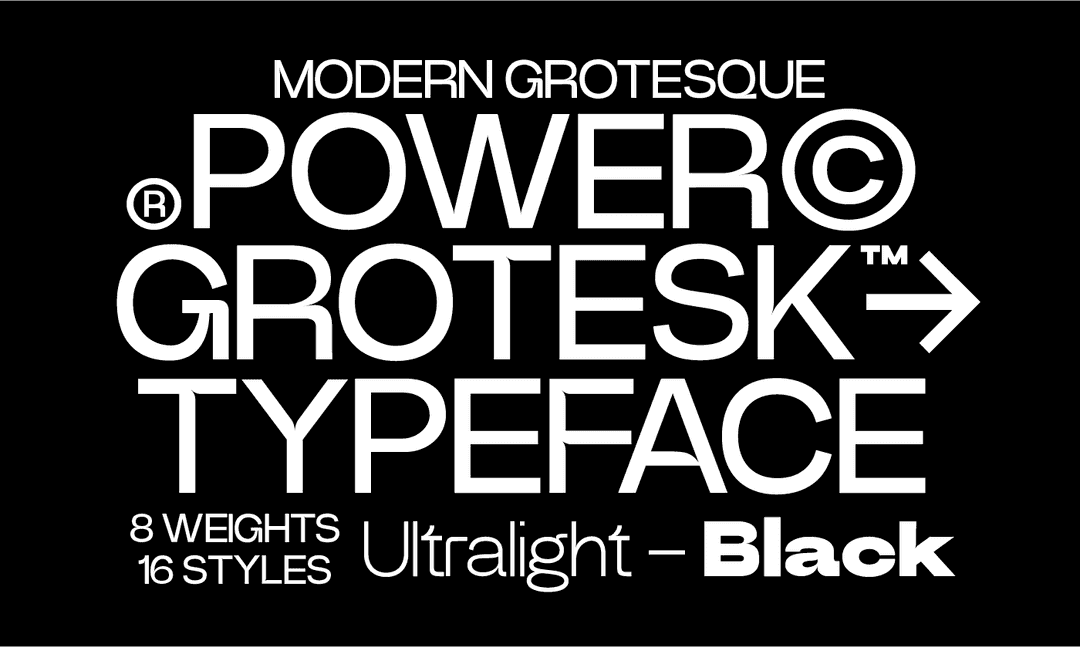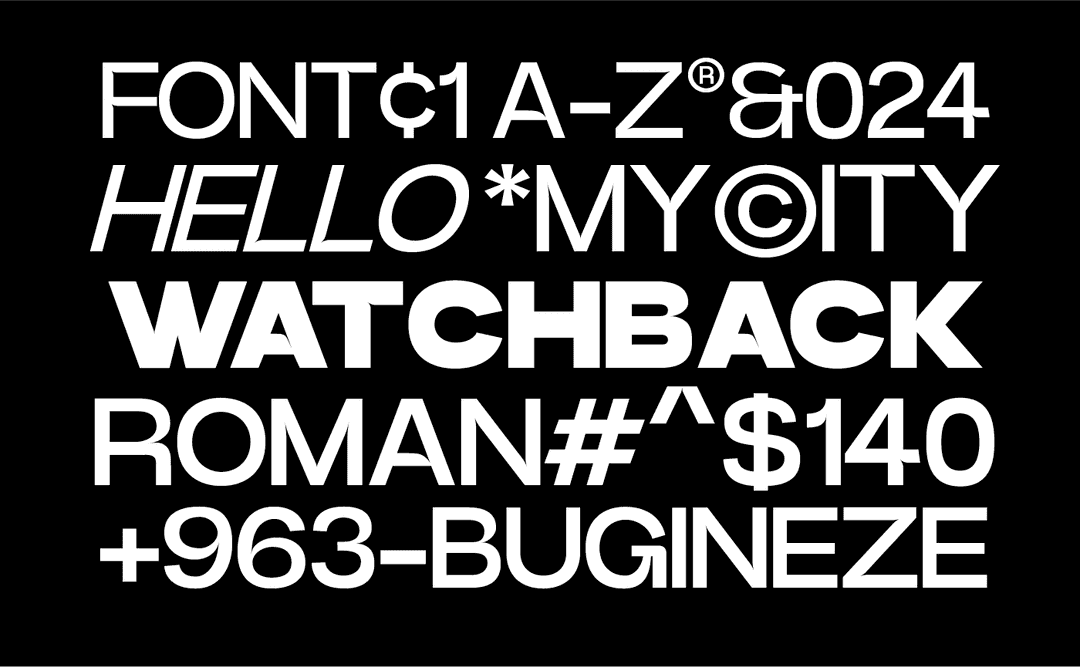
Power Grotesk is a sans serif font with details that give typography that has its own characteristics from the thinnest to the thickest that is slightly widened. The objective is to develop a typeface that can be easily readable and contain good contrast of black and white for various applications. The typeface has a specific characteristic that enhances reading and reproduction with the right-sized ink trap on the text.